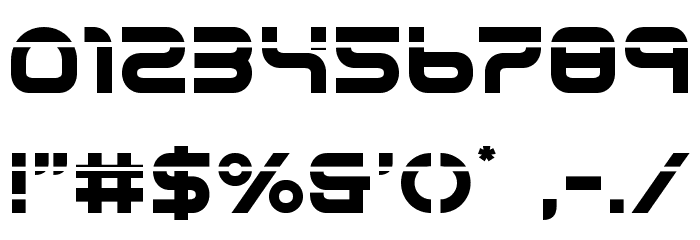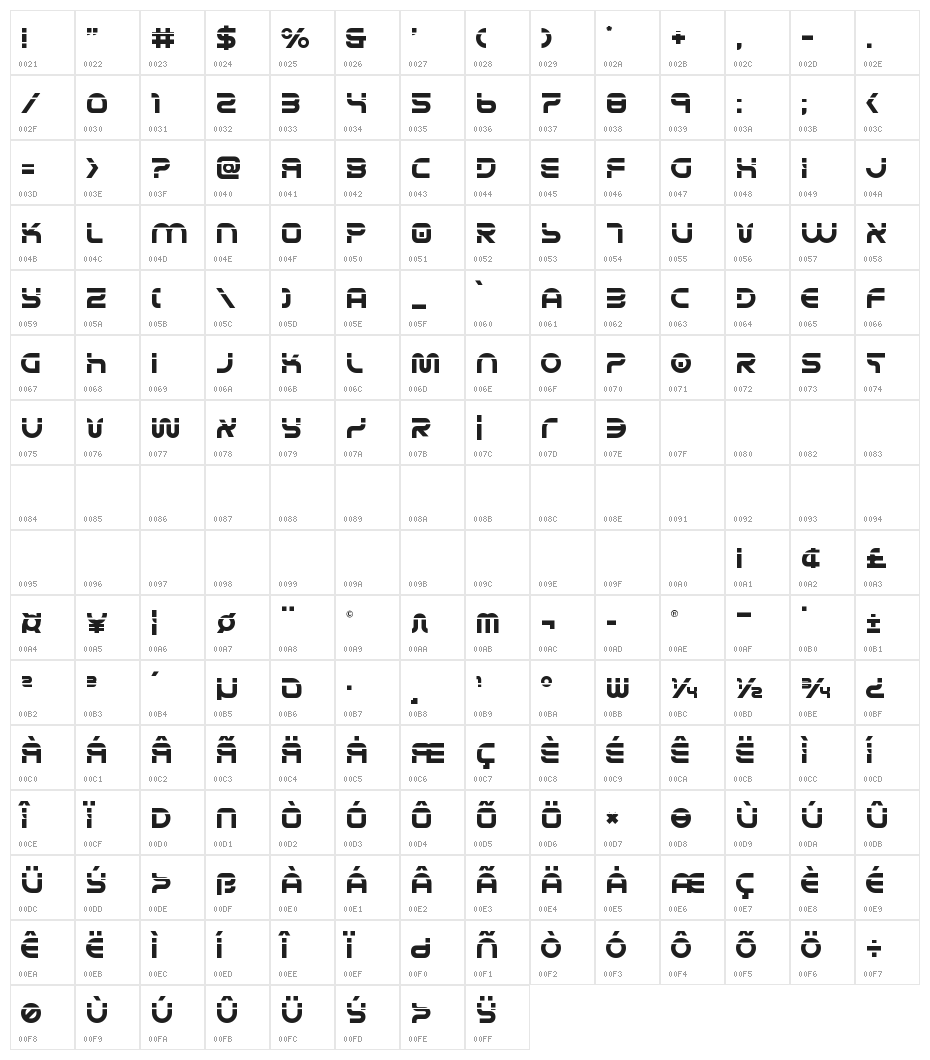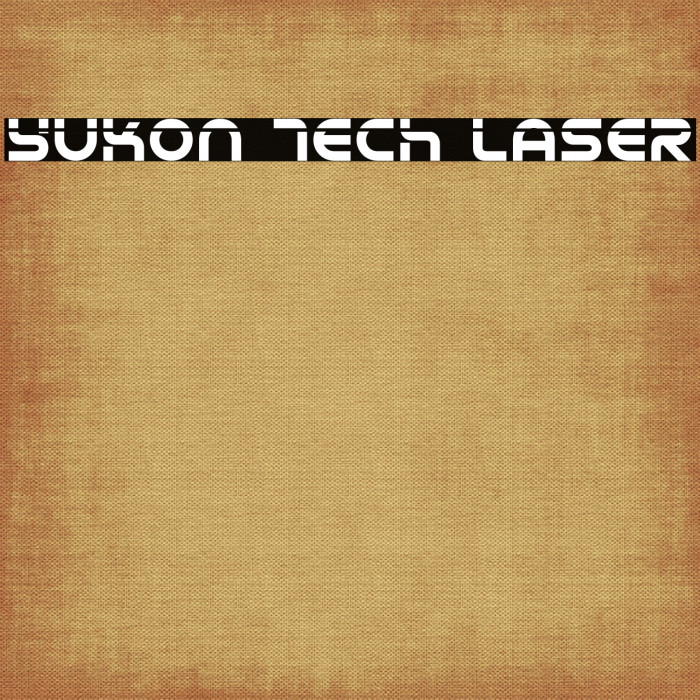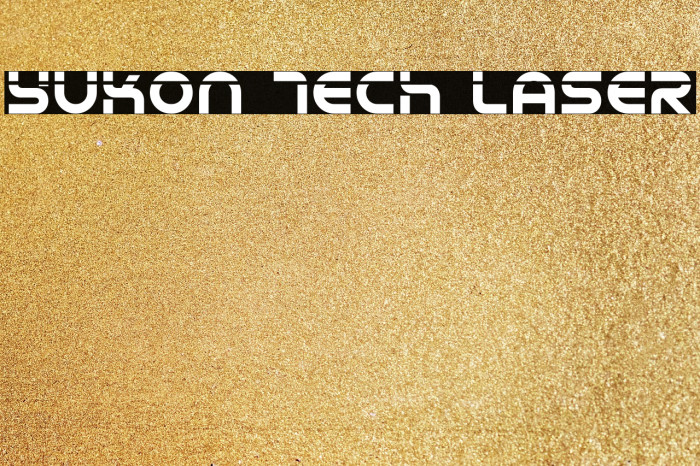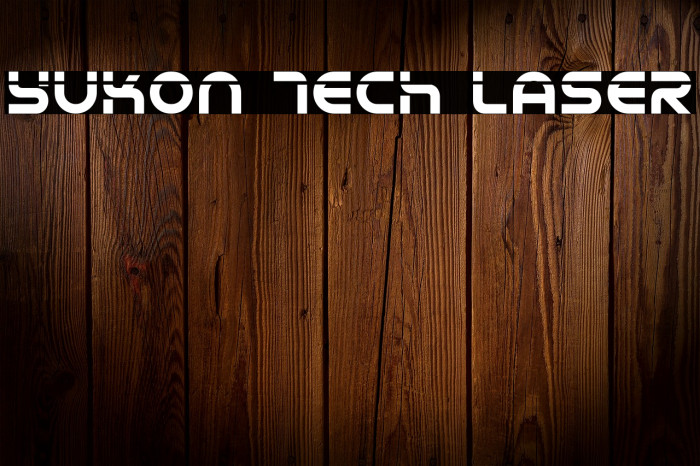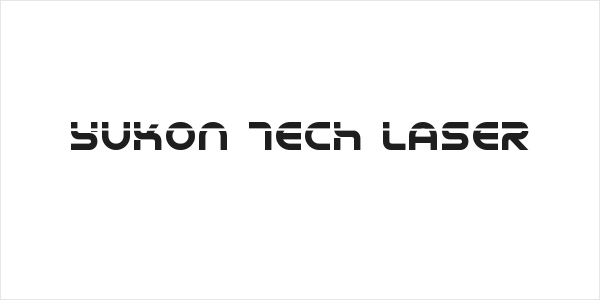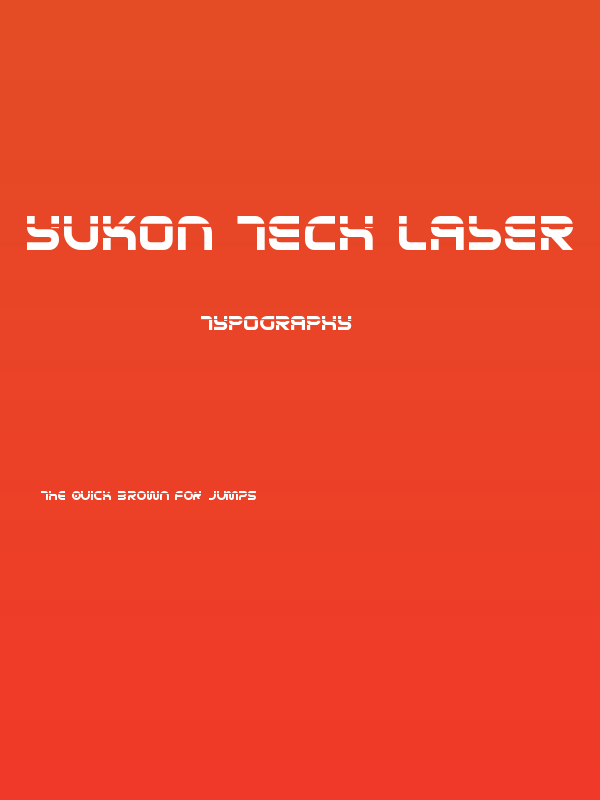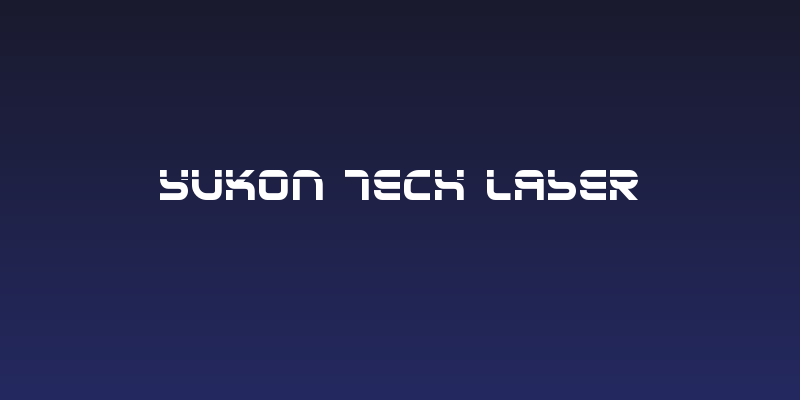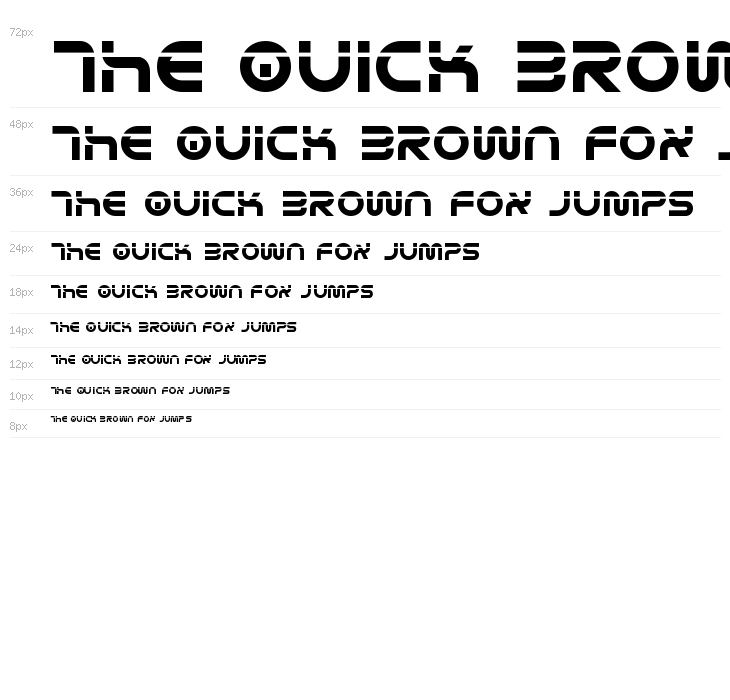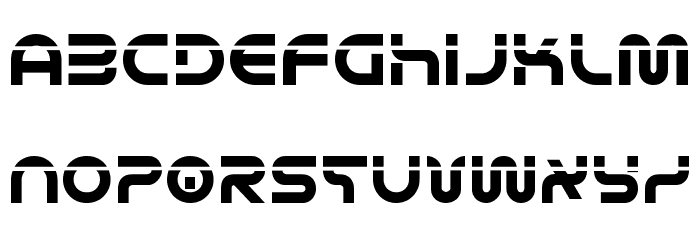
Yukon Tech Laser Font
Yukon Tech Laser Description
This font features a futuristic and geometric design, characterized by its bold and angular letterforms. The characters are constructed with a combination of solid and cut-out sections, creating a stencil-like appearance that is both modern and industrial. The uppercase and lowercase letters maintain a consistent style, with rounded edges and sharp angles that give the font a tech-inspired look. The numerals and special characters follow the same design principles, ensuring a cohesive visual identity across all glyphs. This font is ideal for projects that require a strong, contemporary aesthetic, such as technology branding, sci-fi themes, or digital interfaces.